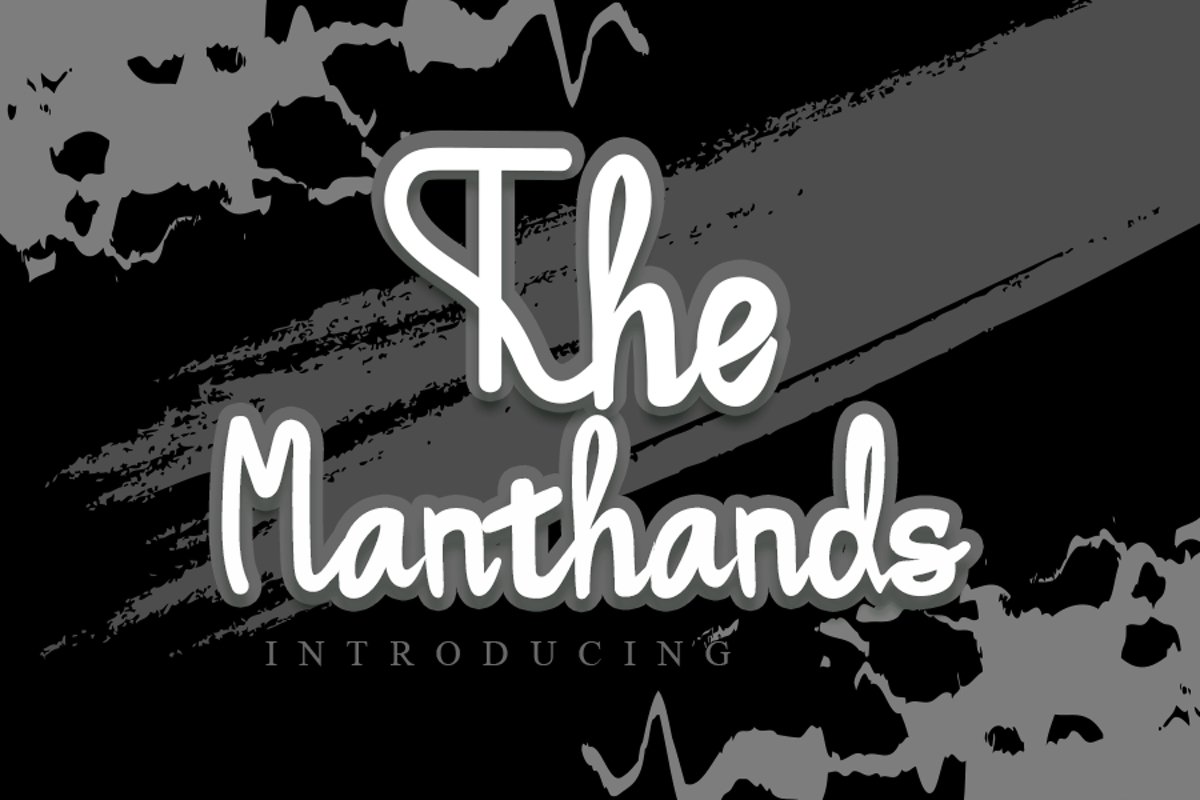
The Manthands
The Manthands is a magical handwritten font carefully created with a touch of elegance. Whether it’s for web, print, moving images or anything else this font will look spectacular.